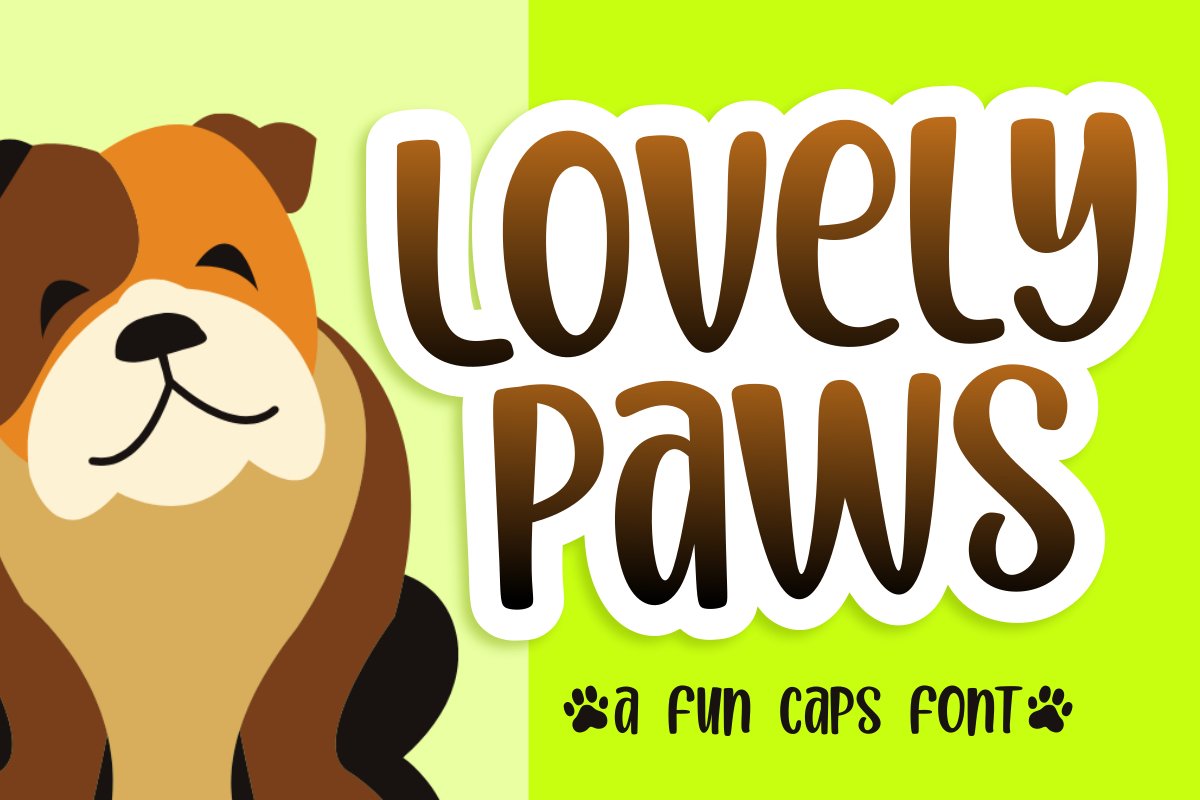
Lovely Paws
Introducing Lovely Paws - a fun handwritten font
Suitable for posters,merchandise, t-shirts,social medias,and many more.
Multilingual Support.